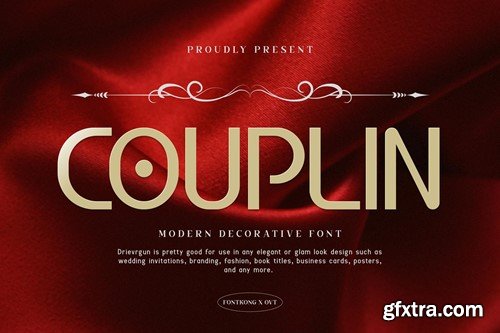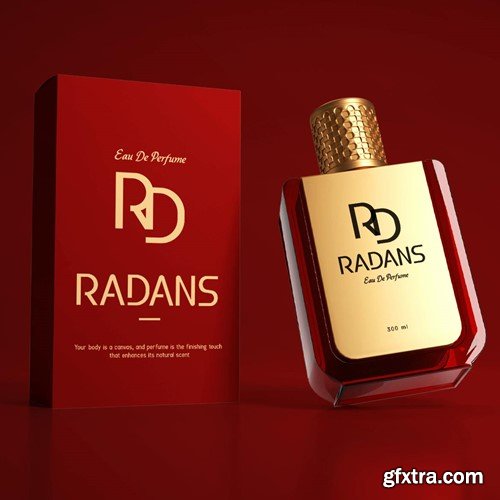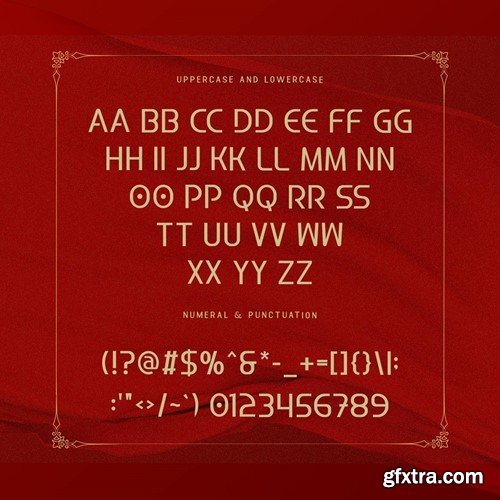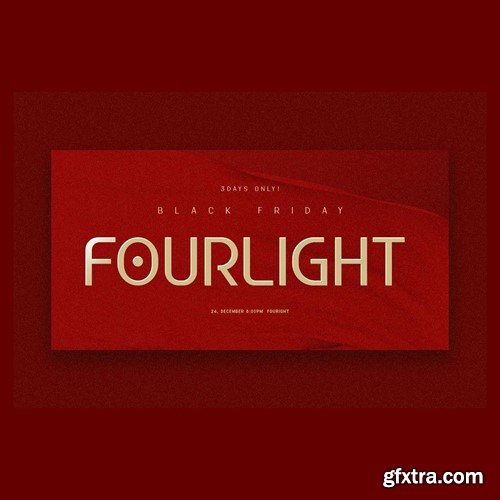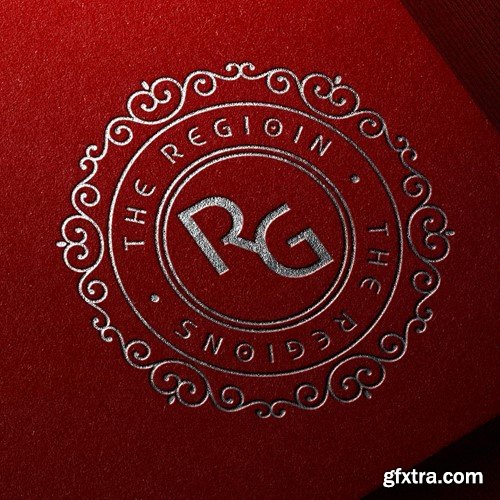
Couplin - Modern Decorative Font Introducing "Couplin," a modern decorative font designed to add a touch of contemporary ornamentation to your designs. With its unique and stylish elements, Couplin brings flair and sophistication to any project. You will receive the font files in TTF, OTF, and WOFF formats Crafted with attention to detail, Couplin offers a perfect balance between modern aesthetics and decorative charm. Whether you're creating invitations, posters, or branding materials, this font captivates attention and enhances visual appeal. Featuring intricate decorative elements and expressive flourishes, Couplin allows you to create eye-catching typography with ease. Its versatility and adaptability make it suitable for a variety of creative endeavors, from elegant wedding invitations to trendy social media graphics. Elevate your design with the contemporary ornamentation of Couplin and make a statement that truly stands out.